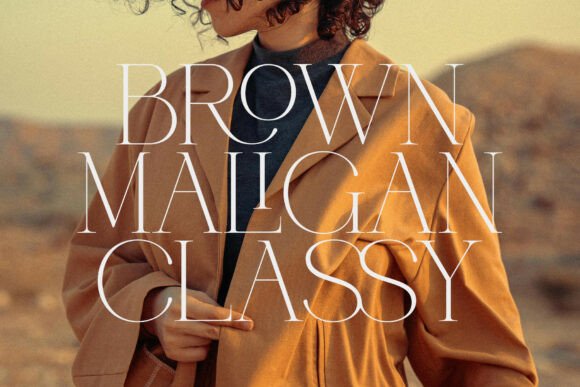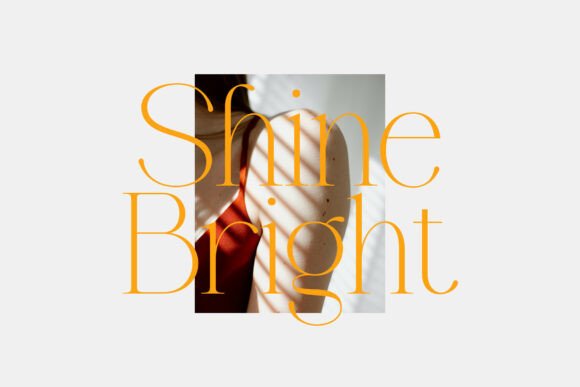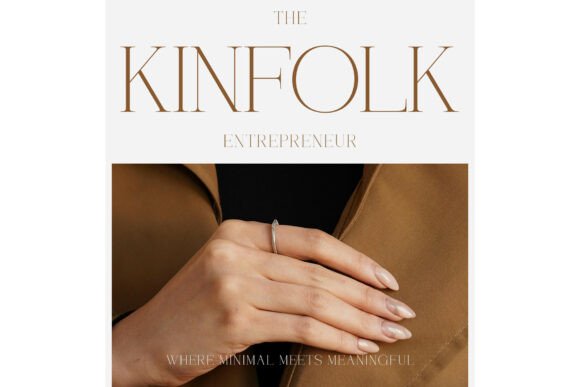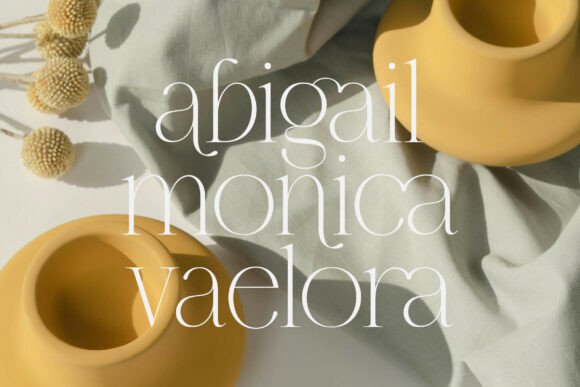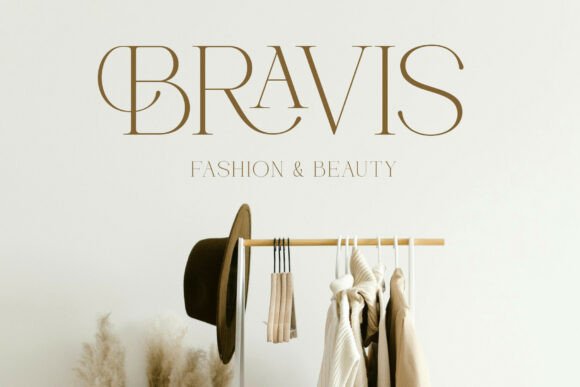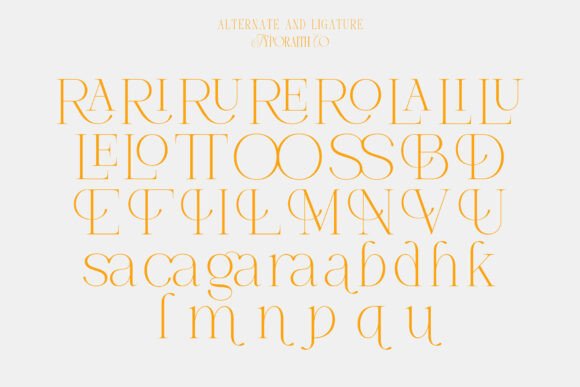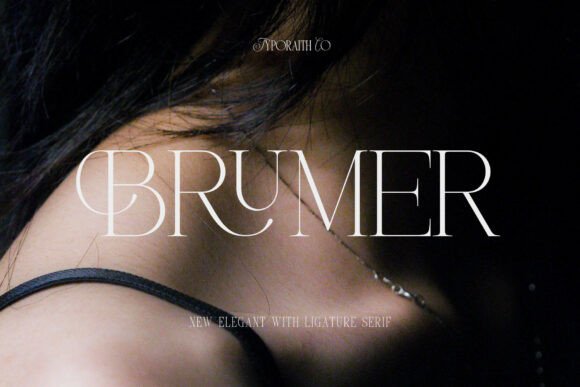
Introducing Brumer Font: Elevate Your Designs with Elegance and Sophistication
In the world of typography, a font can make or break a design. For designers and crafters seeking to infuse their projects with a touch of luxury and classic charm, Brumer Font is an exceptional choice. This elegant serif font, adorned with luxurious ligatures, seamlessly blends traditional character with modern flair, making it perfect for a wide range of high-end applications.
The Essence of Brumer Font
Brumer Font is designed to exude a sense of classic character and modern togetherness, making it an ideal choice for luxury branding projects, wedding invitations, editorials, product packaging, and high-end fashion logos. Each character in the Brumer Font family is crafted with precision and attention to detail, ensuring that every word stands out with elegance and sophistication.
Key Features of Brumer Font
- Elegant Serif Design: Brumer Font boasts a refined serif design that adds a touch of sophistication to any project.
- Luxurious Ligatures: The font features beautiful ligatures that enhance the overall aesthetic of your designs, giving them a luxurious feel.
- Classic and Modern: Brumer Font strikes the perfect balance between classic character and modern style, making it versatile for various design applications.
- High-End Applications: Suitable for luxury branding, wedding invitations, editorials, product packaging, and high-end fashion logos.
Why Choose Brumer Font?
For designers and crafters looking to elevate their design quality, Brumer Font offers a range of benefits:
- Enhance Design Quality: With its strong and elegant characters, Brumer Font can significantly enhance the quality of your designs.
- Versatility: The font’s classic and modern design makes it suitable for a wide range of projects, from traditional wedding invitations to contemporary luxury branding.
- Make Every Word Stand Out: Brumer Font’s unique ligatures and elegant serif design ensure that every word in your design stands out with sophistication and style.
Applications of Brumer Font
Brumer Font’s versatility makes it suitable for various design applications, including:
- Luxury Branding: Create high-end brand identities with a touch of elegance and sophistication.
- Wedding Invitations: Add a touch of luxury and romance to your wedding invitations and stationery.
- Editorials: Elevate your editorial designs with a font that exudes classic character and modern style.
- Product Packaging: Enhance your product packaging with a sophisticated and elegant font.
- High-End Fashion Logos: Create luxurious and stylish logos for high-end fashion brands.
Brumer Font is an exceptional choice for designers and crafters seeking to infuse their projects with elegance, sophistication, and a touch of luxury. With its elegant serif design, luxurious ligatures, and versatile applications, Brumer Font is sure to elevate your design quality and make every word stand out. Whether you’re working on luxury branding projects, wedding invitations, editorials, product packaging, or high-end fashion logos, Brumer Font is the perfect choice for creating stunning and sophisticated designs.